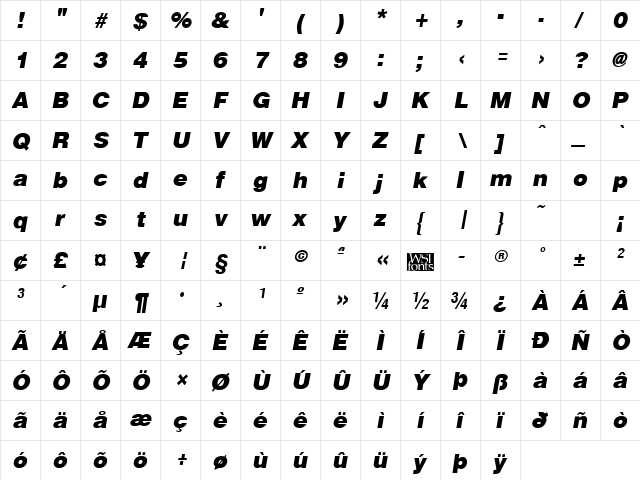
ArenaBlack Italic
Design Context for ArenaBlack Typeface
ArenaBlack takes a measured approach to typography — its balanced proportions and neutral character make it a reliable workhorse for both digital and print work. The slanted form adds forward momentum and visual energy.
Pro Tip: Try ArenaBlack for annotation and caption copy alongside an upright companion — the contrast in angle creates a dynamic but ordered typographic system.